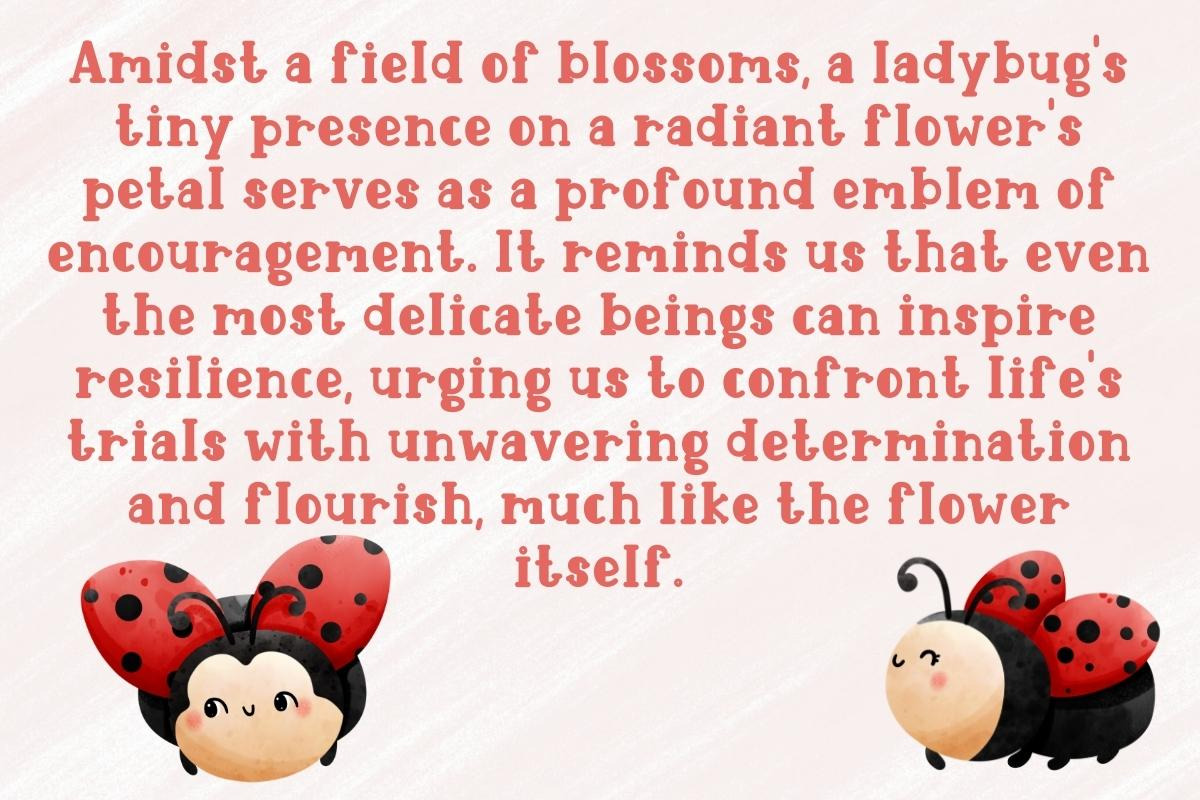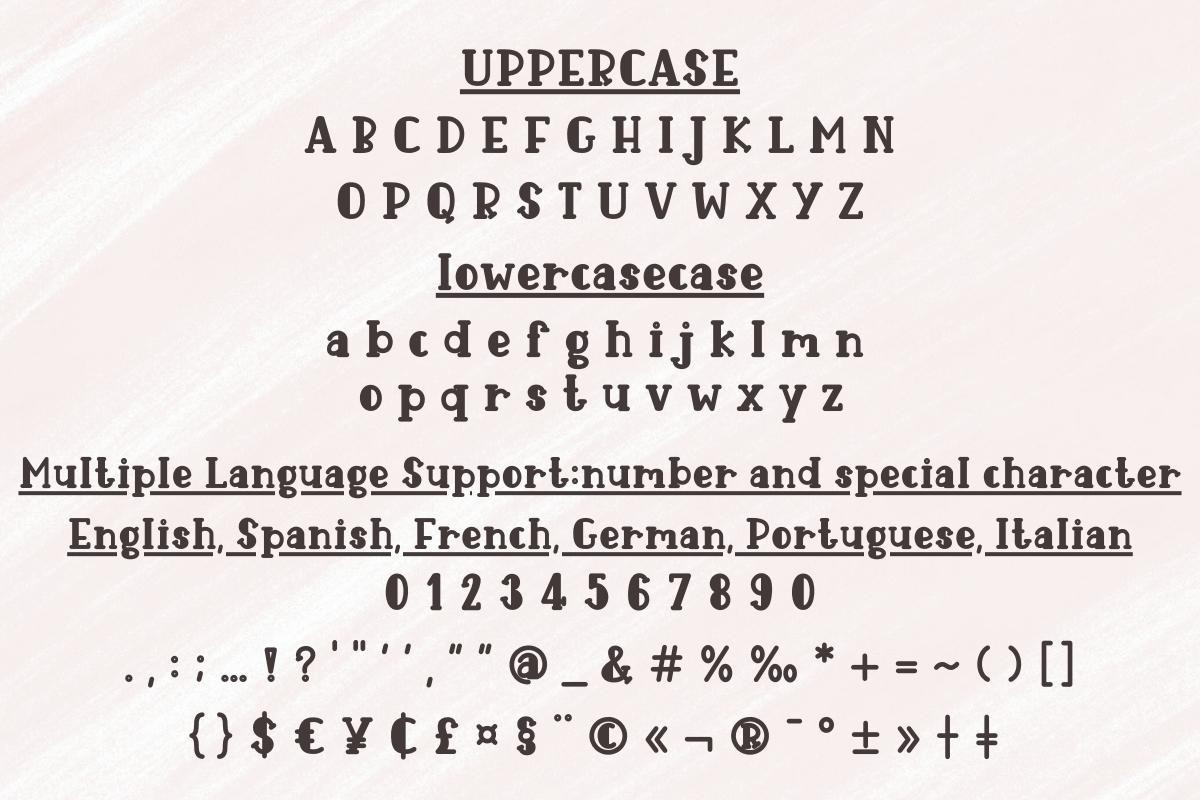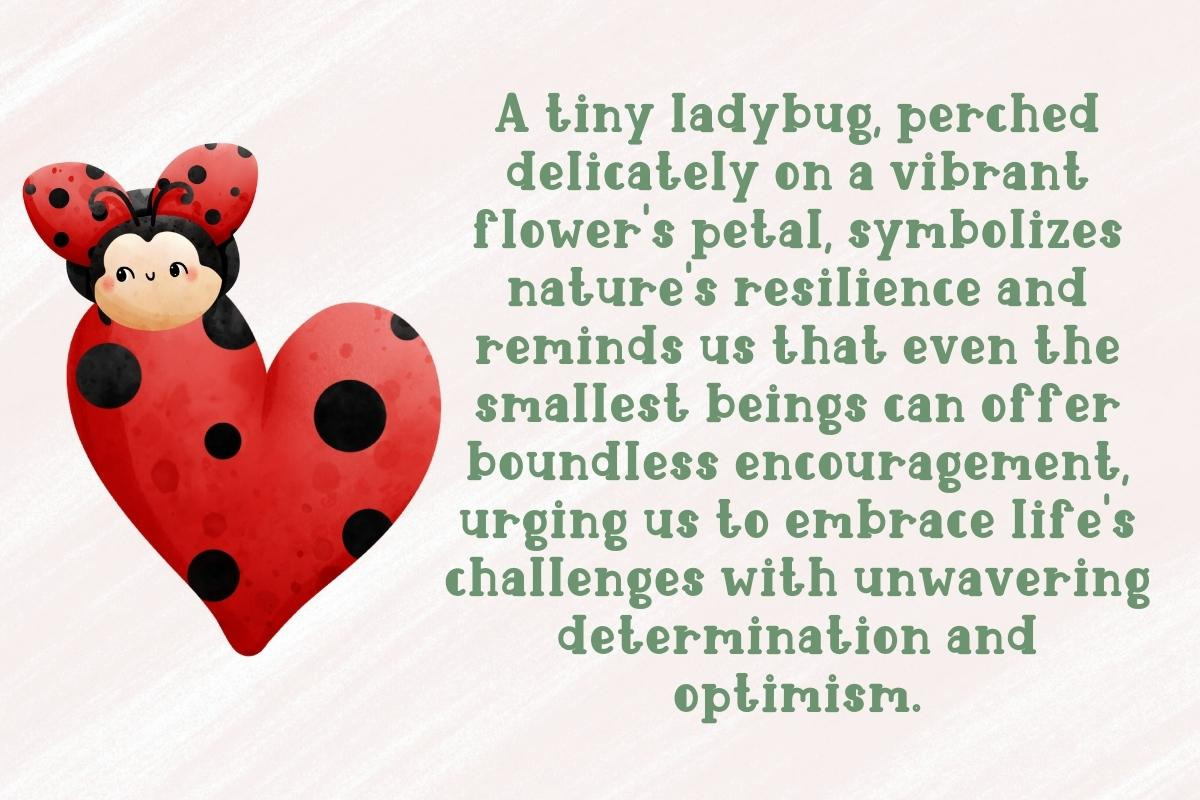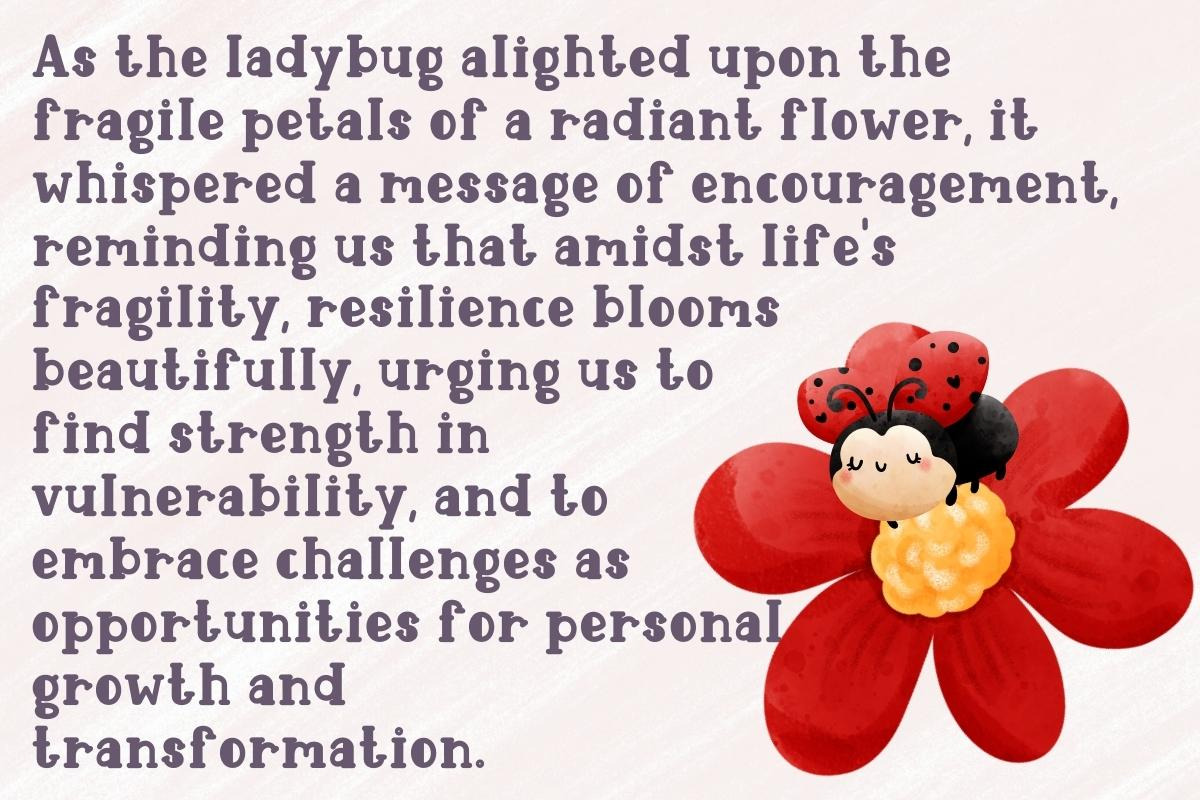
Cute Ladybug - Script Handwritten
" Cute Ladybug " is a very beautiful and cute Handwriting font. " Cute Ladybug " will help you to enjoy and have fun with your designs. If it's on a gift, card, or other item Will definitely like the recipient. Suitable for creating stylish designs. cute and diverse Compatible with many products such as names on gifts, mugs, cards, shirts, banners, content, stationery, social media posts and more.